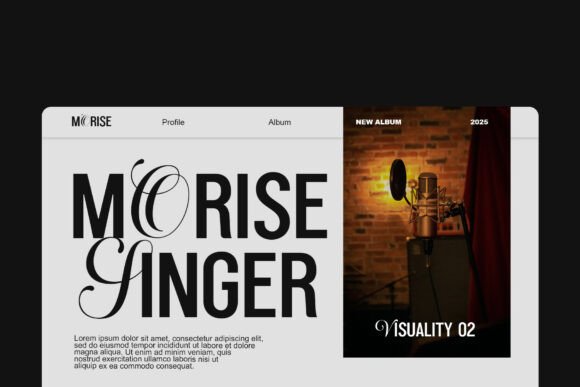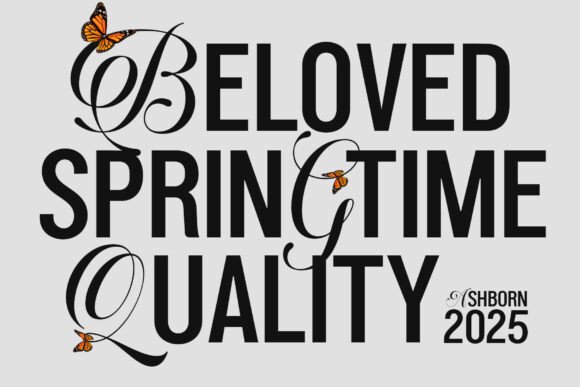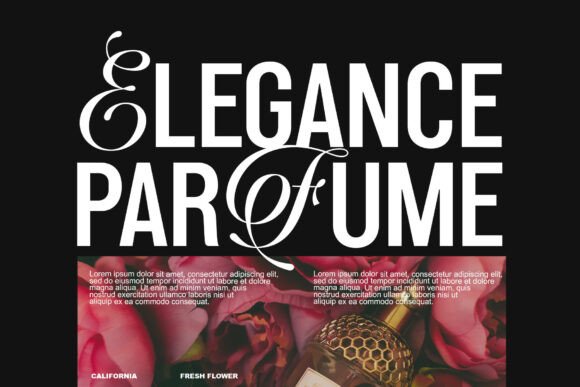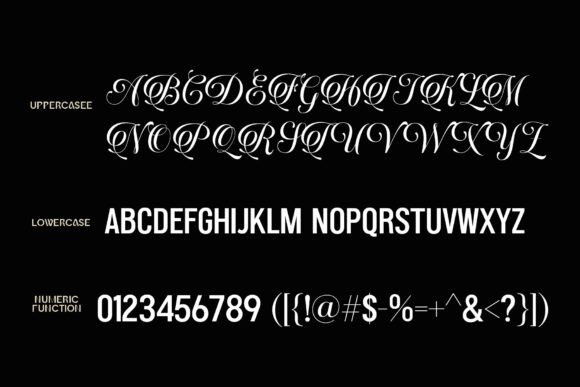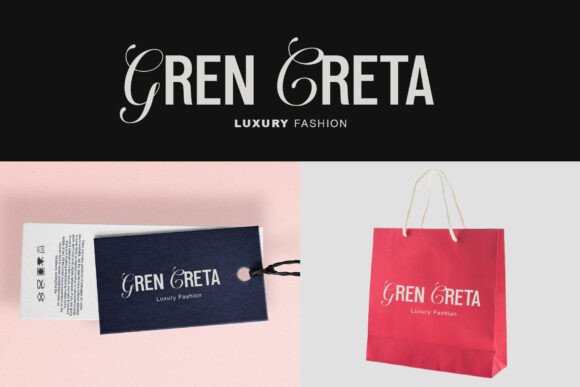
Discover the Timeless Elegance of the Ashborn Font
Enter the Ashborn Font, a sophisticated combination font that masterfully blends the refined elegance of calligraphy with the modern strength of a sans serif. Perfect for luxury branding, editorial titles, logos, wedding stationery, and product packaging, Ashborn delivers a unique harmony of charm and professionalism. Its beautifully styled uppercase “A” with flourishes paired with clean and condensed sans serif letters makes it an invaluable asset for designers seeking to create stunning and memorable designs.
- Unique Characteristics: Ashborn Font features a unique blend of modern and vintage elements, with intricate details and ornate flourishes that add a touch of elegance to any design.
- Kerning and Ligatures: Ashborn Font includes advanced kerning and ligature features, ensuring that characters are displayed with precision and clarity.
The font has a beautiful, elegant feel to it. It’s perfect for designs that need a touch of sophistication.
The font can be a bit too ornate for some designs, which can make it hard to read at smaller font sizes.
The font doesn’t include many alternative styles or weights, which can limit its versatility.
Overall, I think the Ashborn font is a solid choice for designers who are looking for a high-end, elegant font. However, it may not be the best fit for designs that require a more minimalist or modern aesthetic.
Ashborn font is particularly effective for use in titles, headings, and short paragraphs.